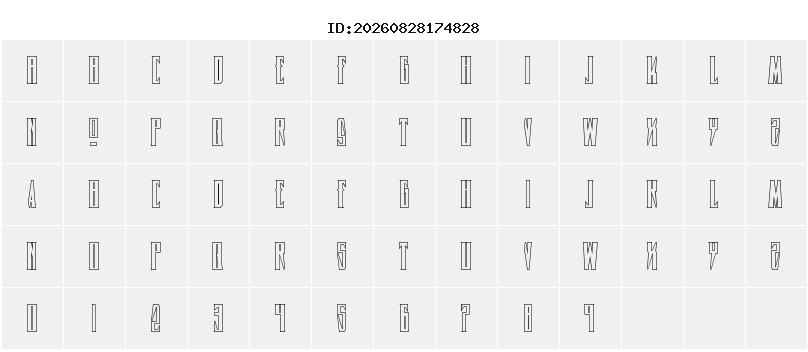
• Font Name: Timberwolf Shadow
• Full Font Name: Timberwolf Shadow Regular
About Timberwolf Shadow.ttf
Timberwolf Shadow.ttf is a modern, elegant sans-serif font designed for ultimate readability and visual harmony. Perfect for branding, headlines, web design, and print materials.